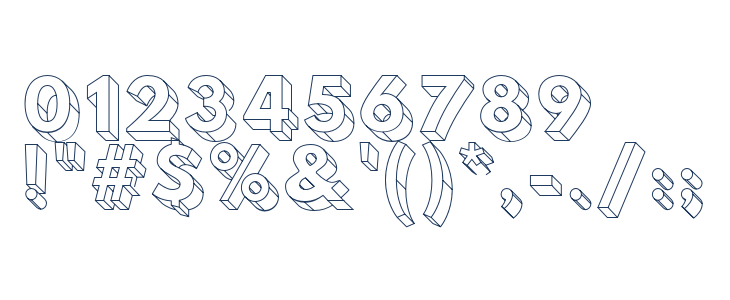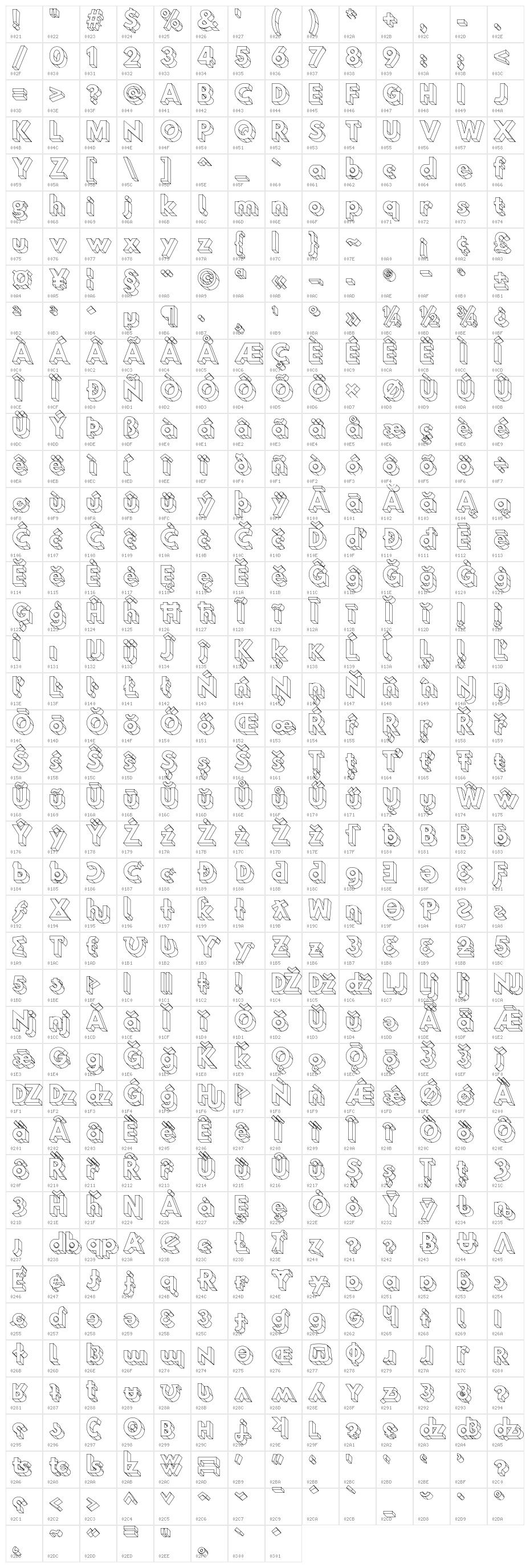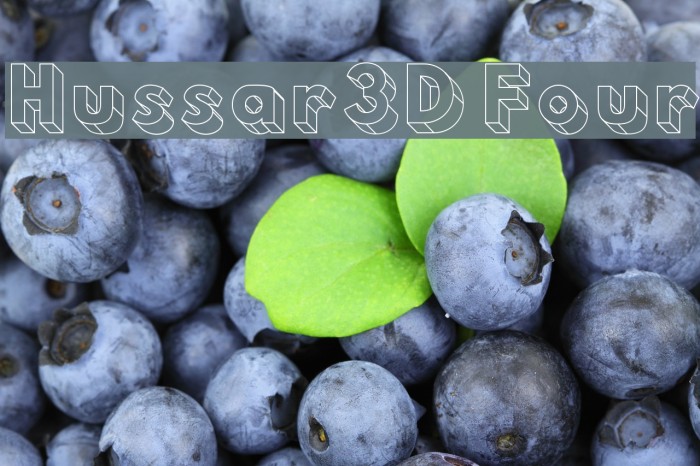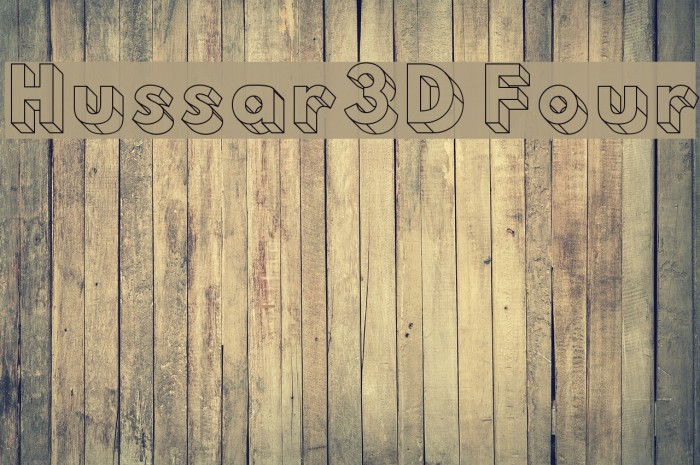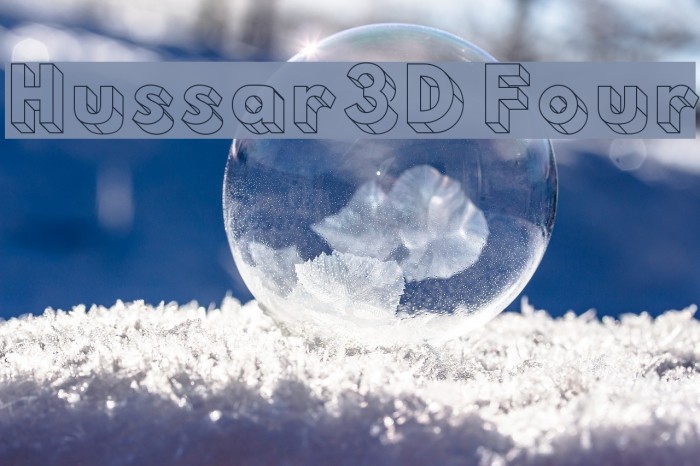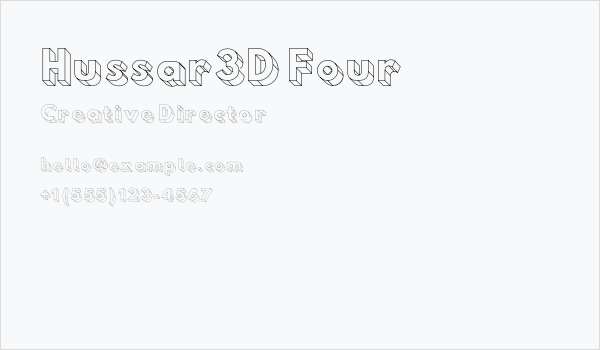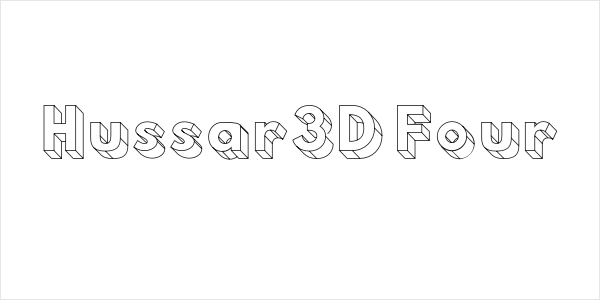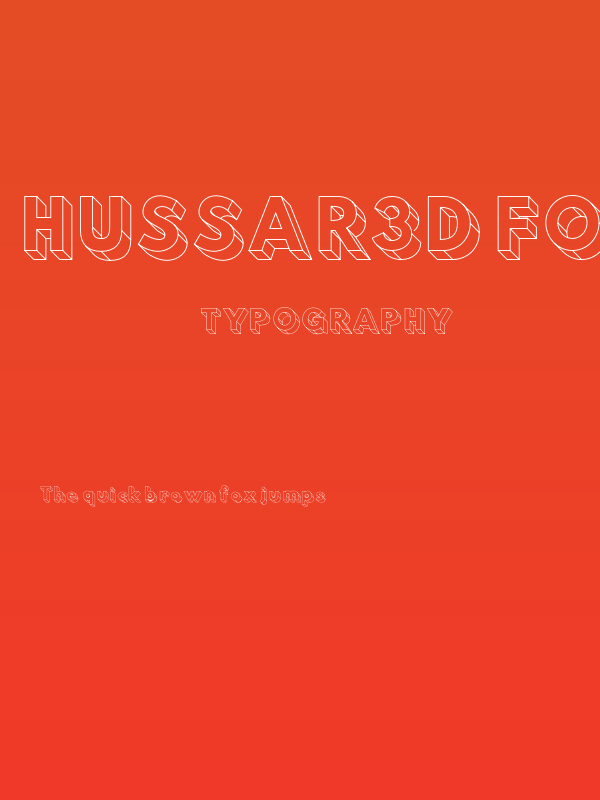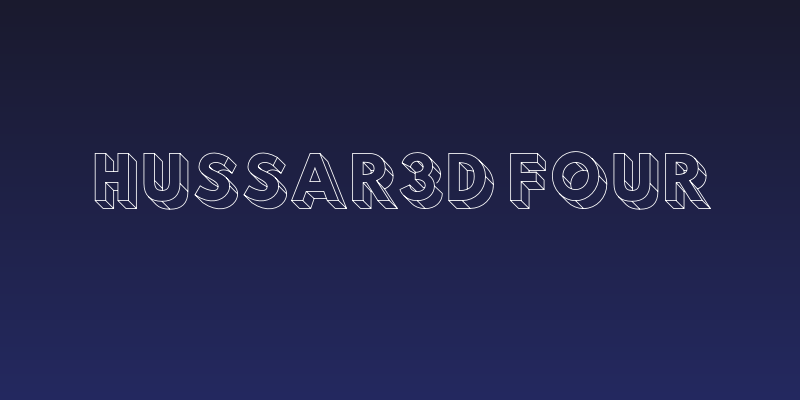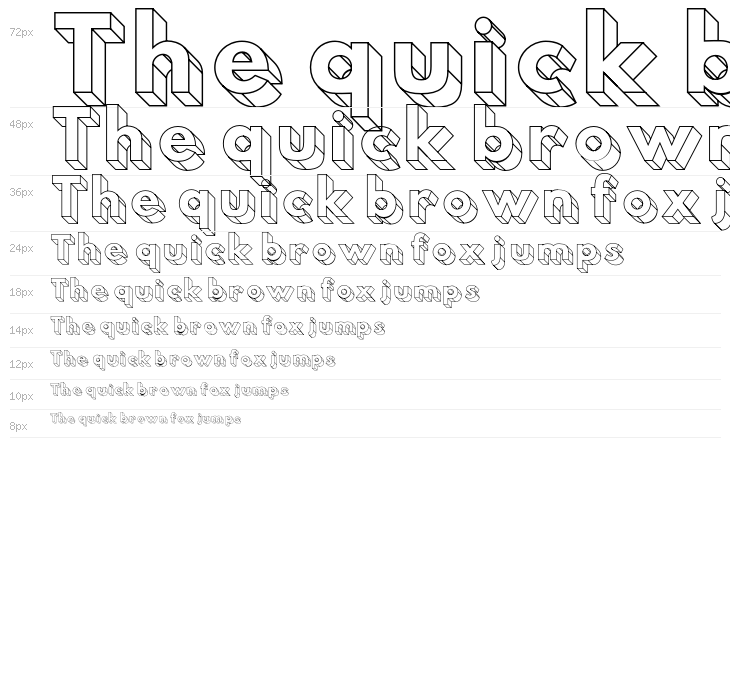
Hussar3D Four Font
Hussar3D Four Description
This font features a bold, three-dimensional design that gives each character a sense of depth and volume. The letters are outlined, creating a hollow effect that enhances the 3D appearance. The geometric shapes are consistent throughout, with clean lines and sharp angles, making it visually striking. The uppercase and lowercase letters maintain a uniform style, while the numbers and special characters complement the overall design. This font is ideal for projects that require a modern and dynamic look, capturing attention with its unique structure.
| Proposed Projects | Ideal for posters, headlines, logos, and any design needing a bold, eye-catching font. |